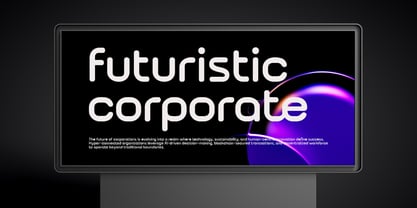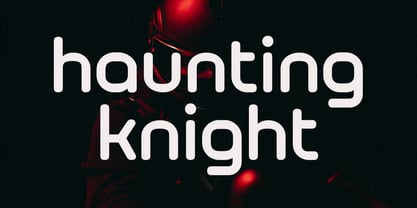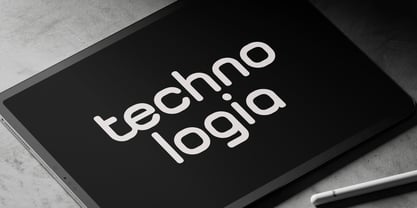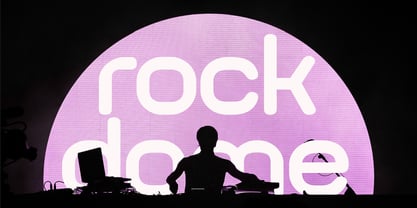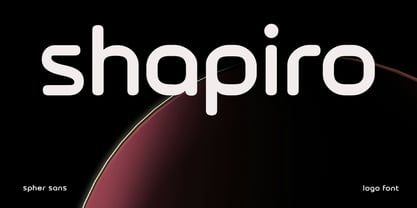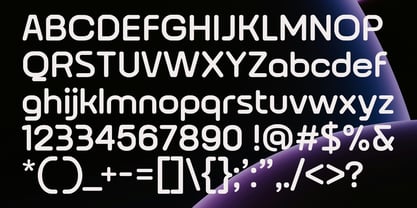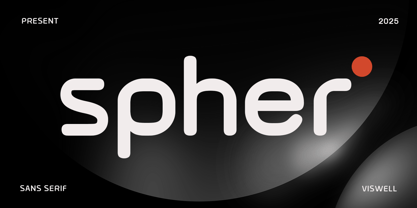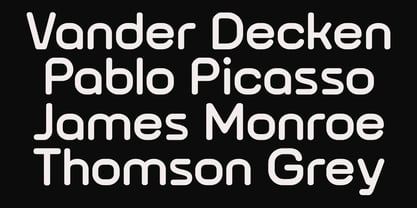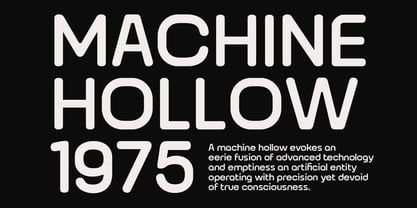
Spher
by Viswell
The Spher Font Family was designed by Najril Ilham Amrullah and published by Viswell. Spher contains 1 styles. More about this family
Introducing Spher — a modern sans serif font with smooth curves and a futuristic edge. Designed with rounded terminals and clean monoline strokes, Spher offers clarity, simplicity, and bold personality all in one. Perfect for tech branding, apps, packaging, and standout headlines.